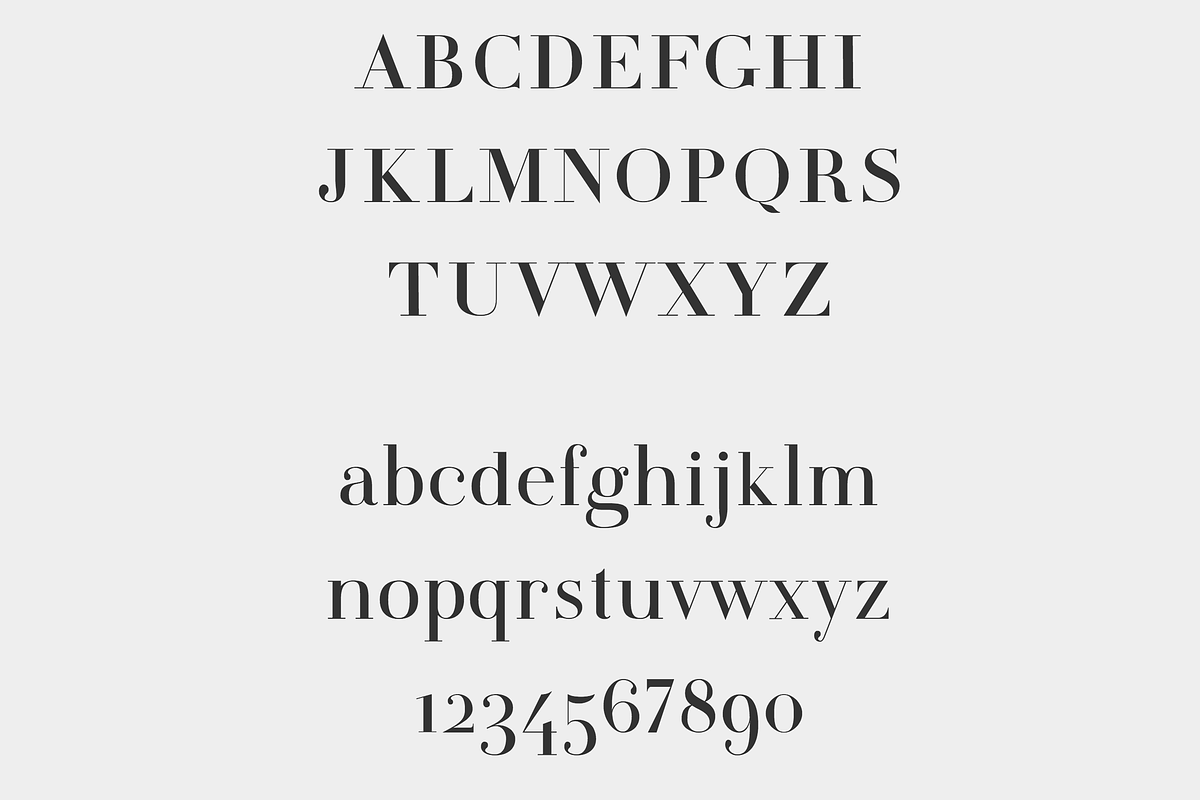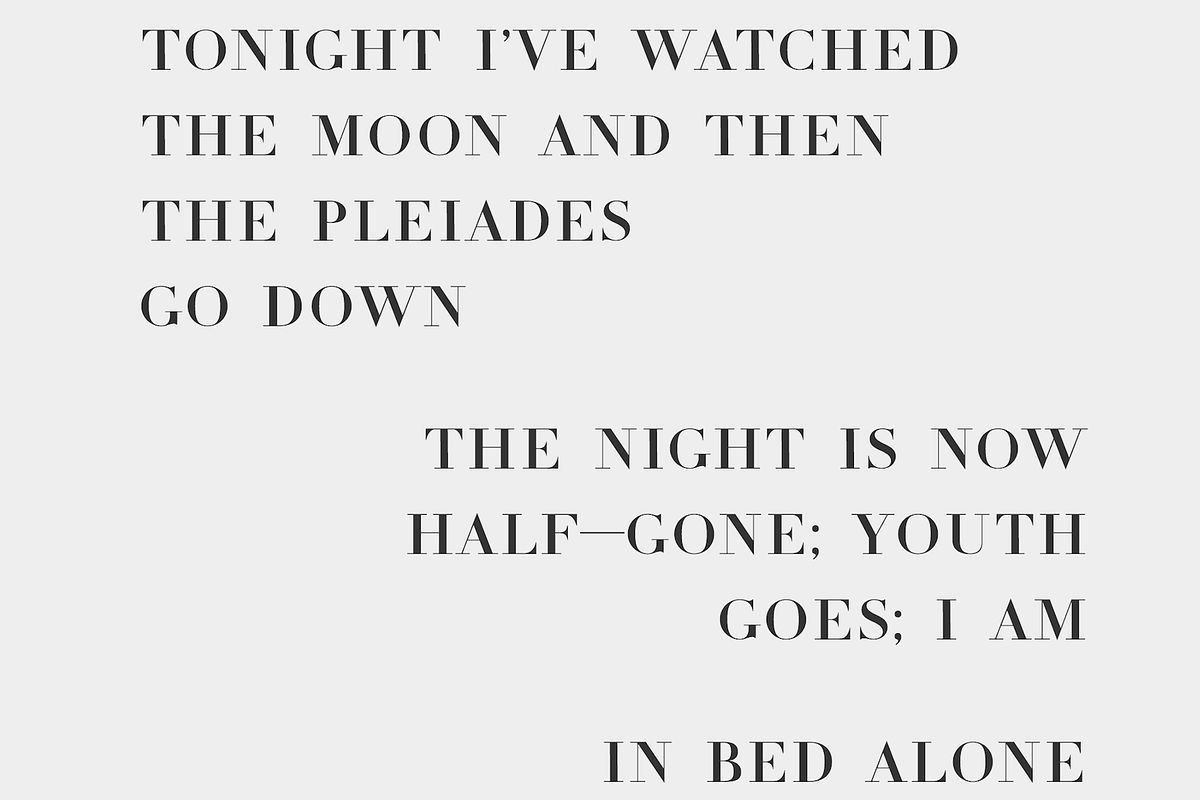
Dihot - a modern classic typeface
Dihot is a modern classic typeface inspired by the legendary French 19th century type designer Firmin Didot.
Use it to give your design an epic, historical, glamorous or luxurious feeling. It can be used for many styles of design—from wedding invites to fashion magazine covers or a museum or art gallery exhibit.
Dihot is designed to be very high contrast and the modern geometric feel will look its best in large sizes.